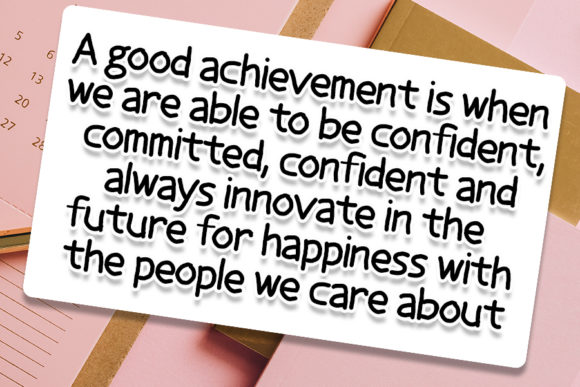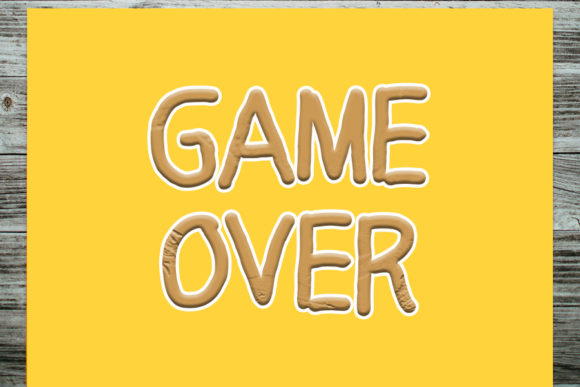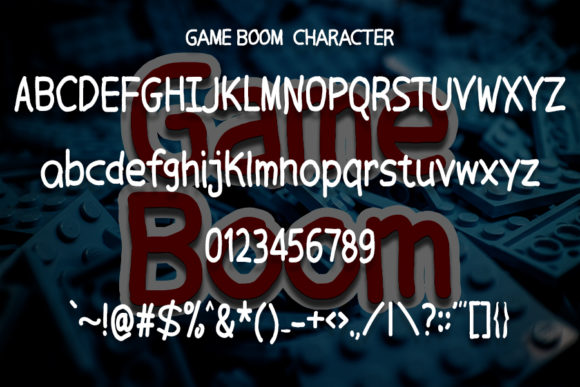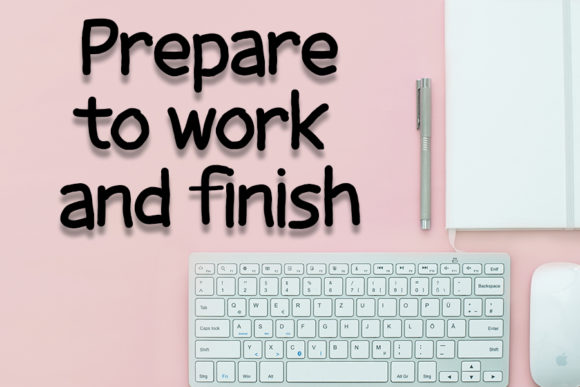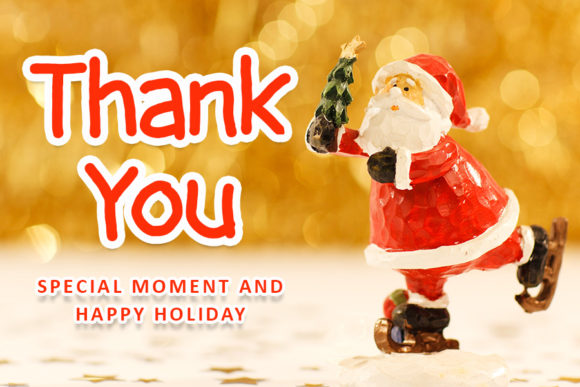
The Game Boom Font: A Cute and Charming Display Font to Elevate Your Designs
Have you ever been in the middle of a design project, and suddenly, you’re stuck on finding the perfect font? I recall a recent experience where I was working on a children’s book cover, and my client requested a font that was both playful and eye-catching. After hours of searching, I stumbled upon the Game Boom font, and it instantly brightened up my design. In this article, I’ll share my journey with the Game Boom font, its features, and how to make the most of it in your designs.
A Personal Encounter with Game Boom
I was working on a tight deadline, and my client’s request was specific: a font that was cute, charming, and whimsical. I had tried several fonts, but none seemed to fit the bill. That’s when I discovered Game Boom. This font is described as a display font, but I found it to be so much more. Its quirky and playful personality instantly resonated with my client’s vision.
An Honest Review of Game Boom
Here’s what I love about Game Boom:
- ✨ Cute and charming design: Game Boom has a unique and captivating design that adds a touch of playfulness to any project.
- ✅ Whimsical and quirky: This font is perfect for designers who want to add a bit of personality to their work.
- 💡 Highly versatile: Game Boom can be used for a wide range of projects, from children’s books to posters and social media graphics.
However, I did notice a few small quirks:
- 🤔 Limited use in formal contexts: Due to its playful nature, Game Boom might not be the best fit for formal or professional projects.
- ⚠️ Some letters may appear too ornate: A few letters, like the lowercase “q” and “g”, might appear too ornate for certain designs.
The Backstory of Game Boom
Game Boom was designed with the intention of creating a font that was both fun and functional. The designer aimed to craft a font that would bring a smile to the user’s face while providing a versatile tool for various design projects. Although the exact backstory of Game Boom might be unknown, it’s clear that the font was created with the goal of inspiring creativity and playfulness in designers.
| What type of projects is Game Boom best suited for? | Game Boom is ideal for projects that require a playful and whimsical touch, such as children’s books, posters, social media graphics, and more. |
| Is Game Boom a difficult font to read? | No, Game Boom is designed to be legible and easy to read, making it perfect for body text and headlines. |